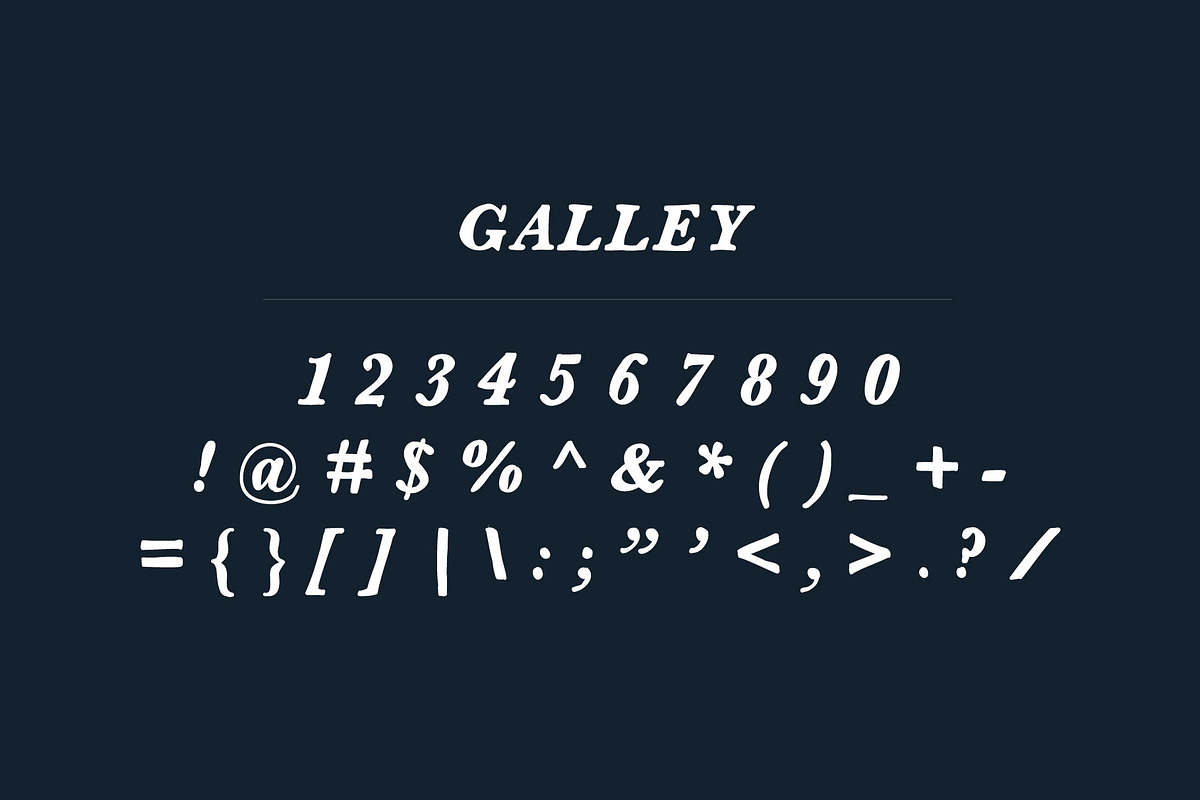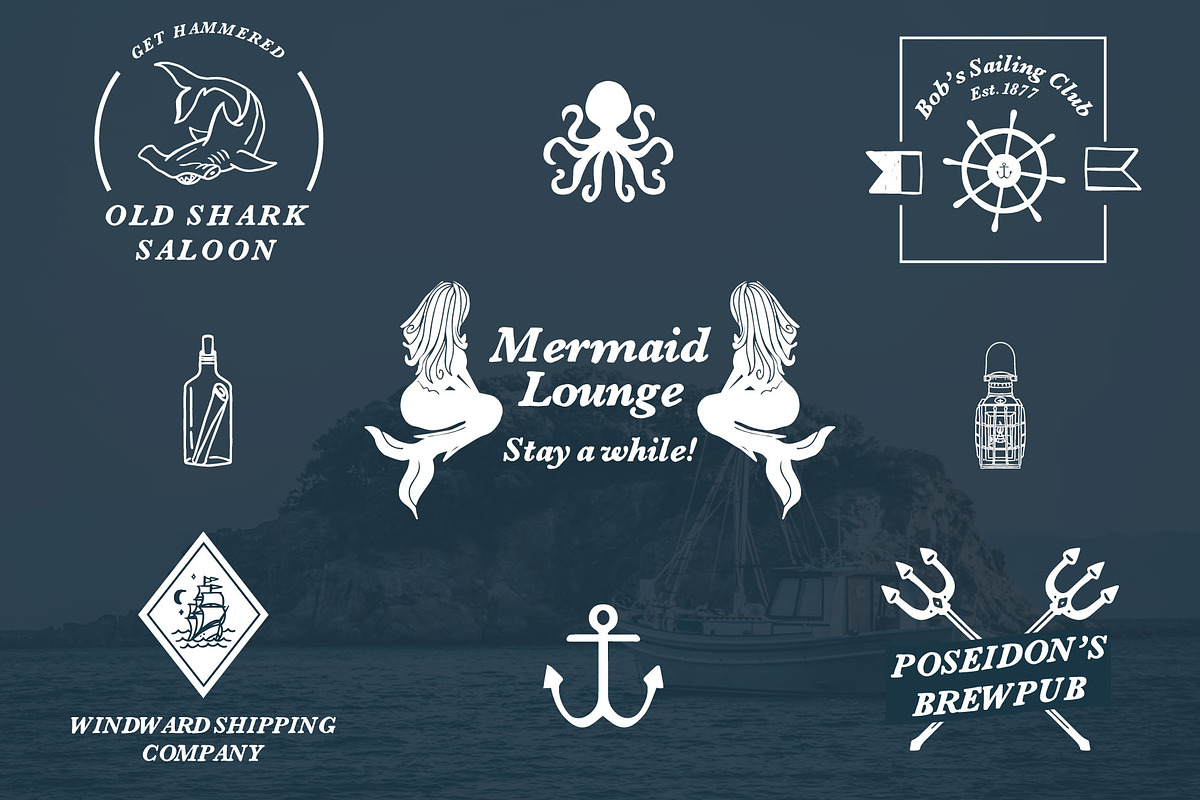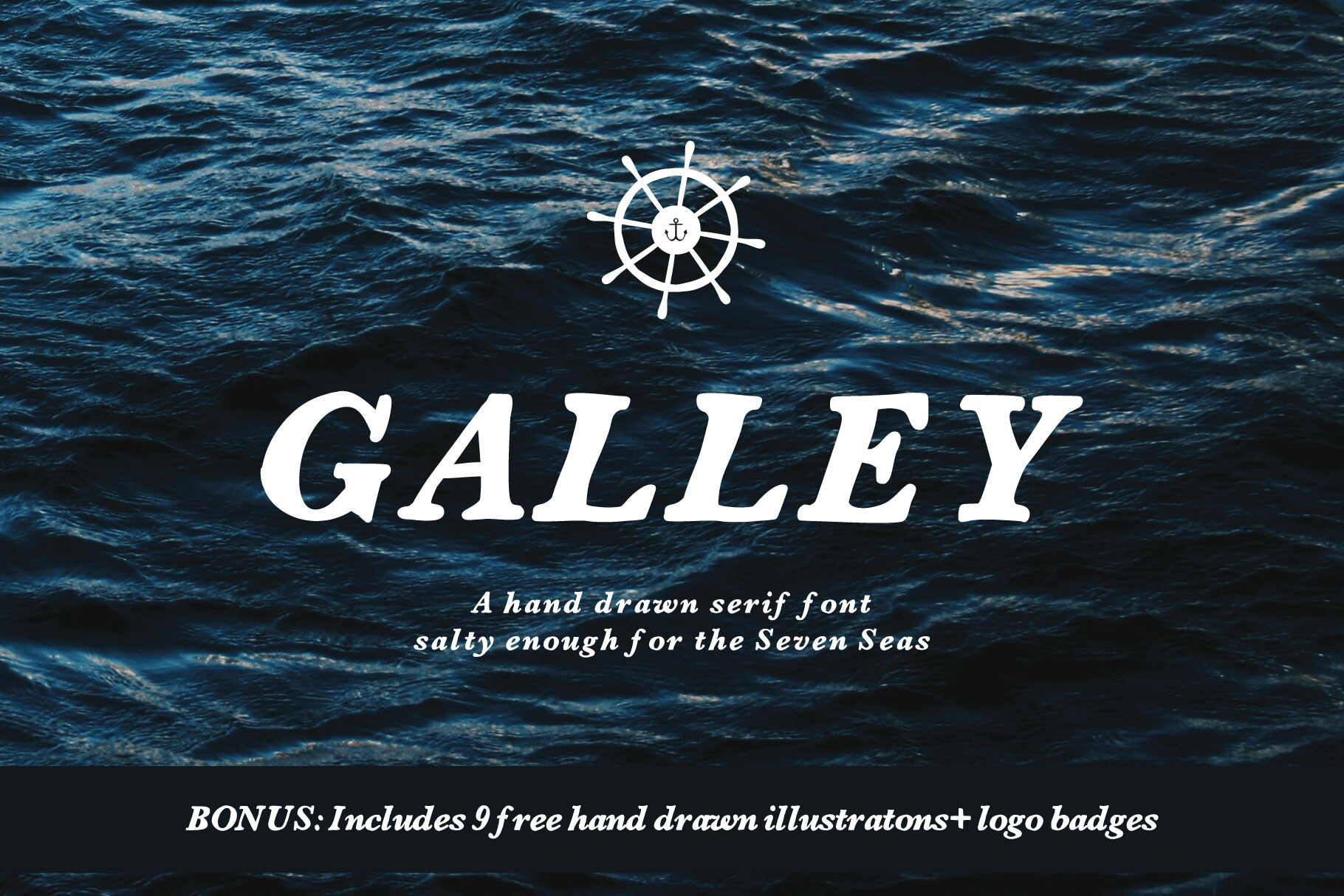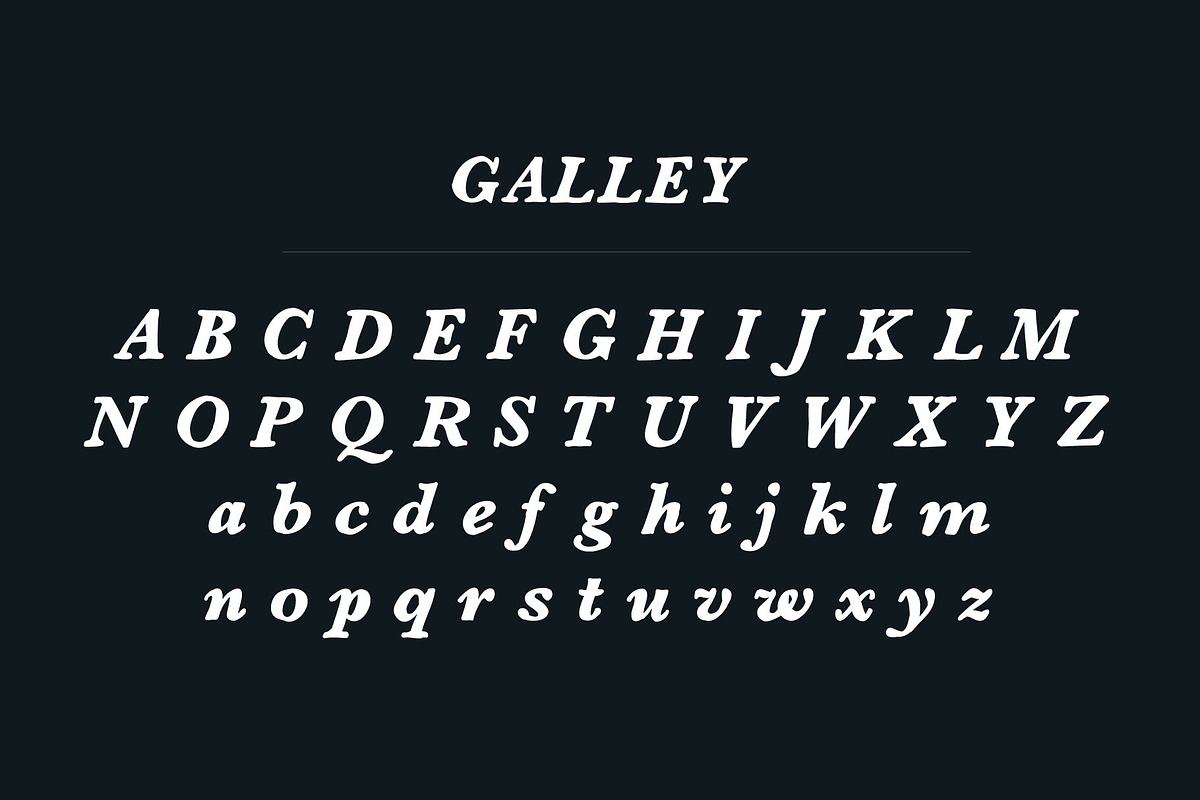
Galley Font + Logo Badges
GALLEY A hand drawn serif font salty enough for the Seven Seas
Inspired by the waves of a dark and endless ocean, this hand-drawn serif font is great for display and paragraph text.
Also included is 9 hand drawn illustrations to use with Galley Font, as well as 5 custom logos created with Galley and the illustrations included.
Great font for nautical-themed work. Kerning is a bit wonky but then again, it fits my project. Thanks!
Love this style! I've been searching for an edgy nautical font for a long time, and this design is perfect for my needs! Thrilled to have found it!